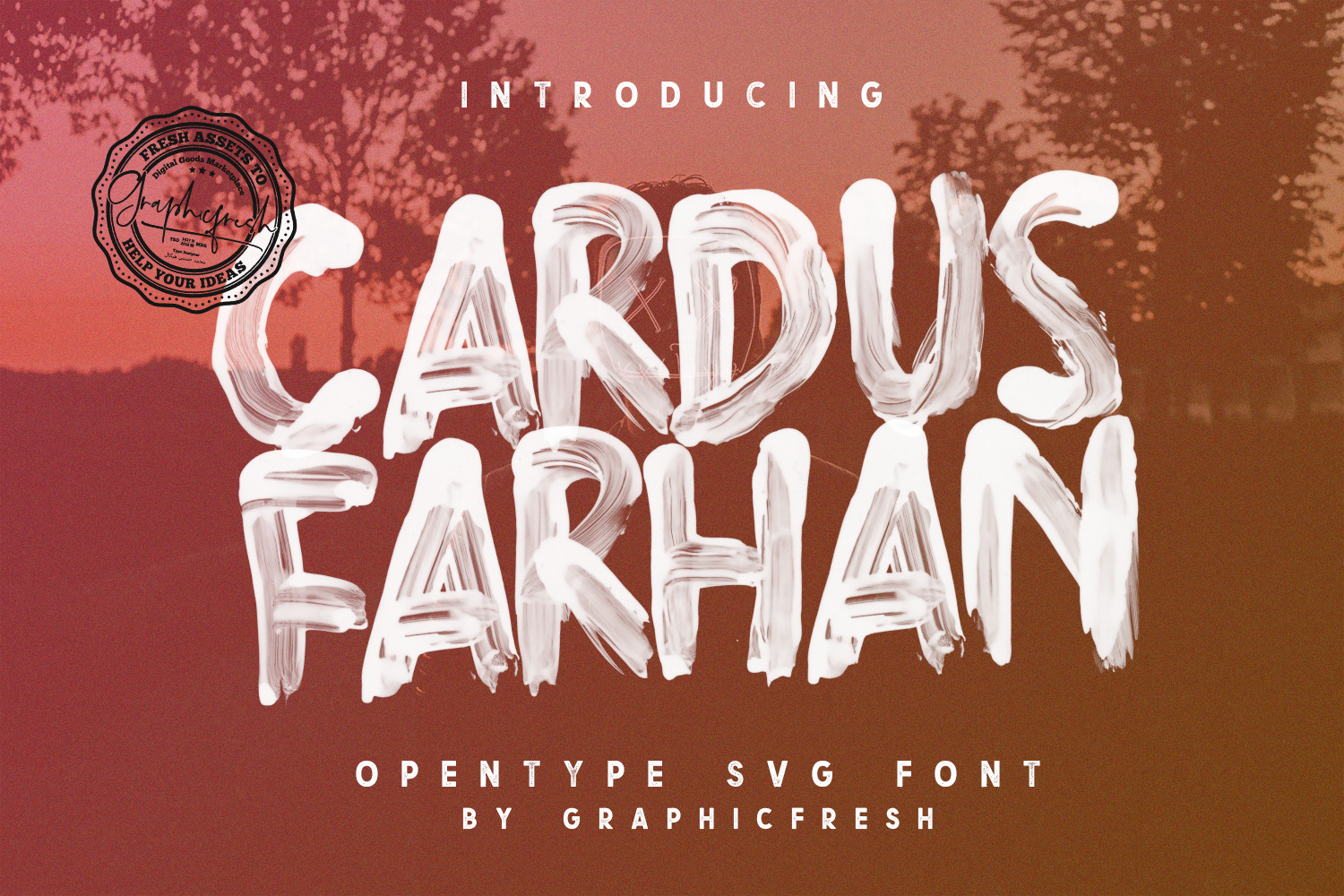
Cardus Brush SVG Font
This font is made with the touch of a hand. Immerse paint on hands, then carved with high art, resulting in a real paint texture. It will be perfect for posters, packaging, advertisements, headlines, branding, signboards, and whatever else you want from an urban look and feel.